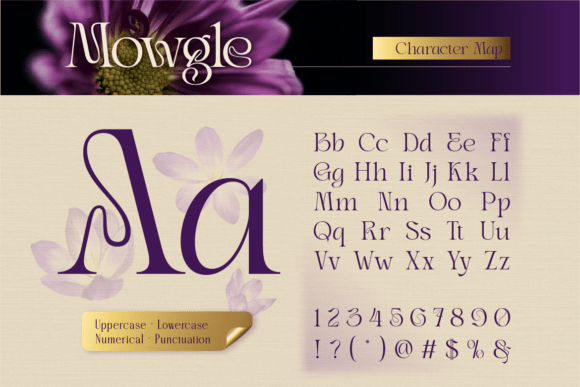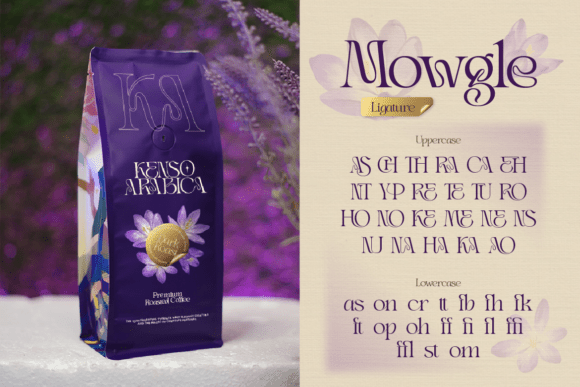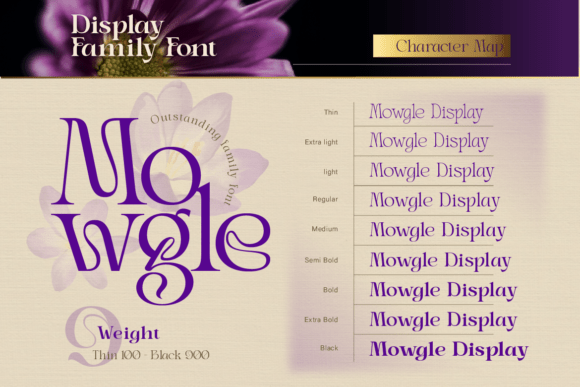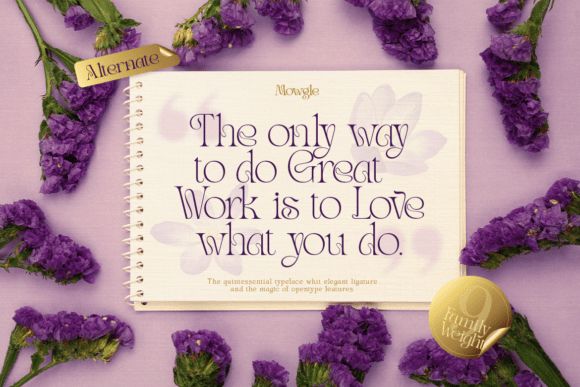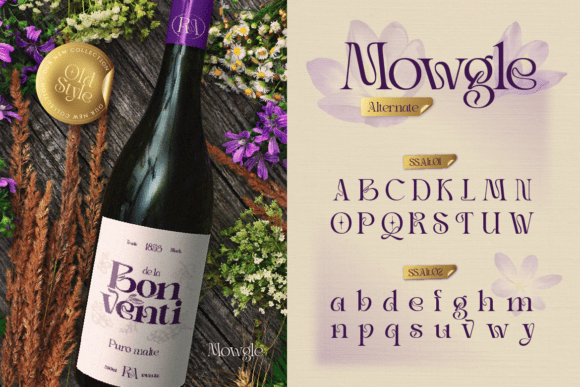
Introduction to Mowgle Font
As designers, we’ve all been there – staring at a blank canvas, searching for that perfect font to bring our creative vision to life. It’s a moment of pure anticipation, where the right choice can make all the difference between a good design and a great one. And that’s exactly where the Mowgle Font comes in – a game-changing serif font that will transport your designs to a world of elegance and fantasy.
With its smooth, flowing curves and bold yet refined letterforms, the Mowgle Font is a high-quality design resource that offers perfect readability and a touch of sophistication. Whether you’re working on a creative project that demands beauty and distinction, or simply looking for a free download to elevate your designs, the Mowgle Font is an excellent choice. Its transparent background and versatile weight variations make it a versatile tool for designers of all levels.
Key Features of Mowgle Font
- High-quality font with transparent background, ideal for creative projects requiring a clean and minimalist design resource.
- Features a unique, modern design aesthetic, perfect for adding a touch of sophistication to your creative project.
- Includes a comprehensive character set, covering a wide range of languages, making it a versatile design resource for international projects.
Honest Review: Mowgle Font
- ✨ The Mowgle Font features a transparent background, making it easy to integrate into any design project.
- ✨ The font is incredibly versatile and can be used for a wide range of creative projects, from logos to infographics.
- ✨ The font is highly customizable, allowing designers to tweak the style to suit their specific needs.
- ⚠️ The font may not be suitable for very small text sizes, as the characters can become difficult to read.
- ⚠️ Some users may find the font’s unique style to be overwhelming or distracting in certain contexts.
Overall, I’m impressed with the Mowgle Font and would highly recommend it to designers looking for a high-quality, versatile font for their creative projects. It’s a great resource to have in your design arsenal.
Mowgle Font is commonly used in creative projects such as logos, brochures, and social media graphics. Its unique design makes it an excellent choice for designers looking for a high-quality, free download font.
Alternatives to Mowgle Font
Montserrat Font is a high-quality, sans-serif font ideal for creative projects that require a modern and sleek look. It’s free to download and features a transparent background, making it perfect for designs that need a clean and minimalist aesthetic.
Montserrat Font is similar to Mowgle Font in its clean and modern design, but it’s more versatile and can be used in a wider range of creative projects. It’s a great alternative for designers who want a high-quality font that’s easy to read and customize.